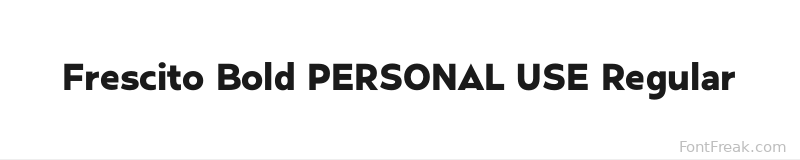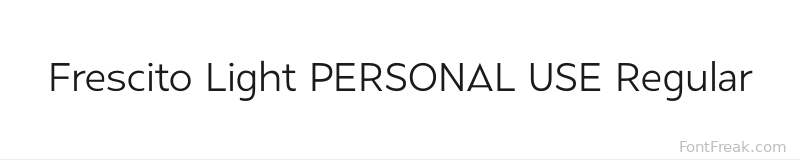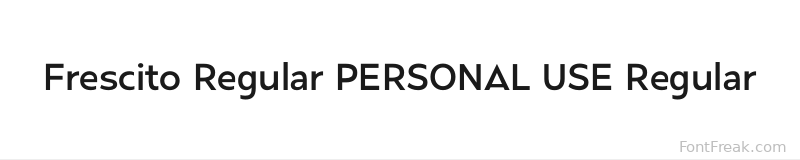
About Frescito Variable PERSONAL
Frescito Variable PERSONAL by Mans Greback is a versatile sans-serif typeface that embodies modernity and elegance. This font, released in 2023, offers a unique variable design that allows for a range of weights from light to bold, making it adaptable for various design needs. The clean lines and smooth curves create a balanced visual appeal, while the consistent stroke weight ensures legibility across different sizes and applications. The spacing is thoughtfully designed, facilitating readability while maintaining a contemporary aesthetic.
This font is ideal for a variety of use cases. Its sleek look makes it perfect for restaurant menus, where clarity and style are paramount. Additionally, Frescito Variable PERSONAL shines in wedding invitations, adding a touch of sophistication to personal announcements. Graphic designers will find it suitable for branding projects, as the flexibility of weight can convey different tones and messages. It's also a great choice for movie posters, where the variable styles can help in creating dynamic and eye-catching titles. Content creators looking to enhance their online presence will appreciate its modern feel in social media graphics and website headers.
What sets Frescito Variable PERSONAL apart is its combination of elegance and versatility. This font not only adapts to diverse design contexts but also maintains a timeless quality that resonates with contemporary aesthetics. For those seeking a fresh and functional typeface, the Frescito Variable PERSONAL font free download is a compelling choice that elevates any project.